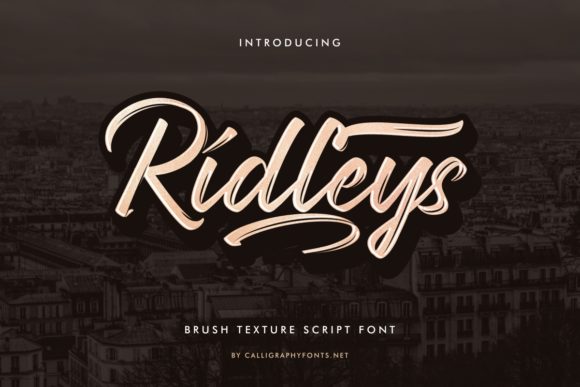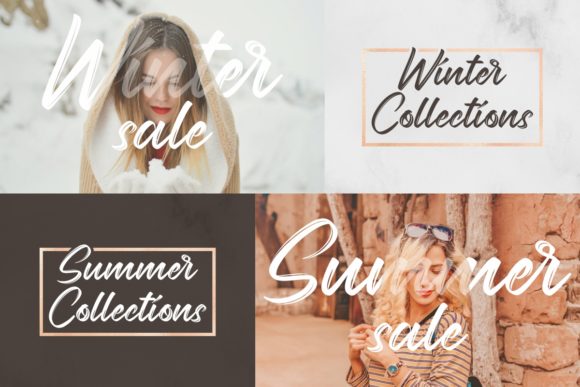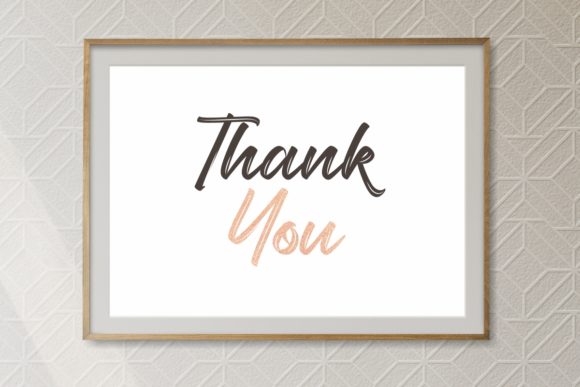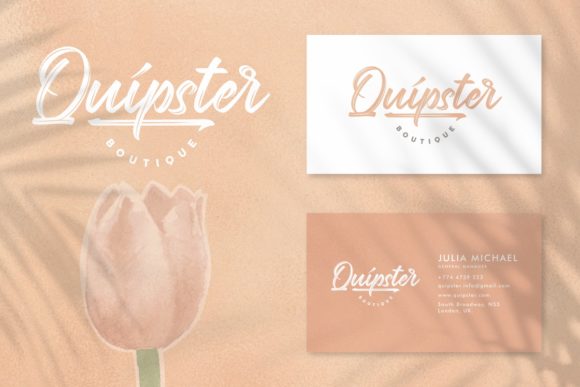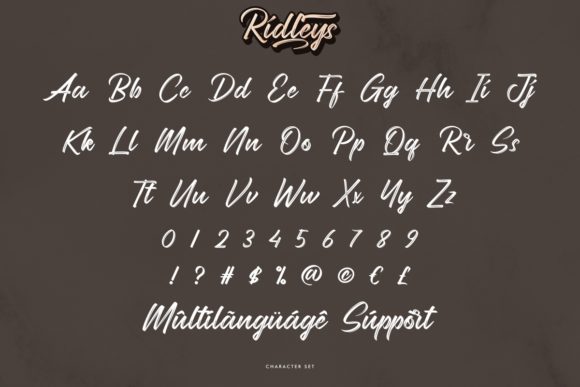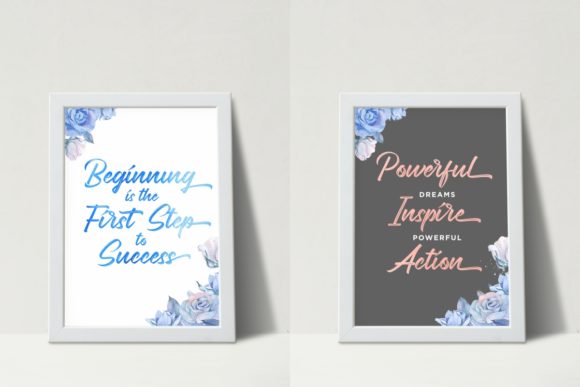
About Ridleys Font
Ridleys is a remarkable script font that brings a captivating and artistic brush style to your creative ideas. With its distinctive and expressive strokes, this font has the power to make your designs truly stand out.
The brush style of Ridleys adds a dynamic and energetic touch to your typography. The varying thickness and fluidity of the strokes create a sense of movement and spontaneity, giving your text a lively and vibrant appearance. Whether you’re using Ridleys for headlines, logos, branding, or any other design element, it will undoubtedly make a bold statement.
The versatility of Ridleys allows it to be applied to a wide range of design projects. It is well-suited for various purposes, including branding, packaging, advertising, posters, invitations, and more. The expressive nature of the font adds personality and character to your designs, making them visually engaging and memorable.
With its PUA encoding, Ridleys provides you with easy access to a wide array of glyphs and swashes. This means you can effortlessly explore different stylistic alternatives and customize your text to suit your creative vision. Whether you want to add flourishes, ligatures, or unique character combinations, the PUA encoding ensures a smooth and hassle-free experience.
Furthermore, Ridleys is designed with legibility in mind. While it has an artistic and expressive appearance, it maintains readability, allowing your message to be effectively communicated. This makes it suitable for both short and longer texts, ensuring that your design not only looks visually stunning but also conveys its intended meaning.
When incorporating Ridleys into your designs, you have the freedom to experiment and create captivating compositions. The brush-style strokes and varied letterforms offer a range of design possibilities, allowing you to play with layout, hierarchy, and visual impact.
In summary, Ridleys is a spectacular script font with a brush style that brings an exceptional level of artistry and expression to your designs. Its dynamic and lively strokes make your text stand out and captivate viewers. With its PUA encoding, you can easily access a variety of glyphs and swashes to further customize your typography. Whether you’re designing logos, branding, or other creative projects, Ridleys is sure to leave a lasting impression.